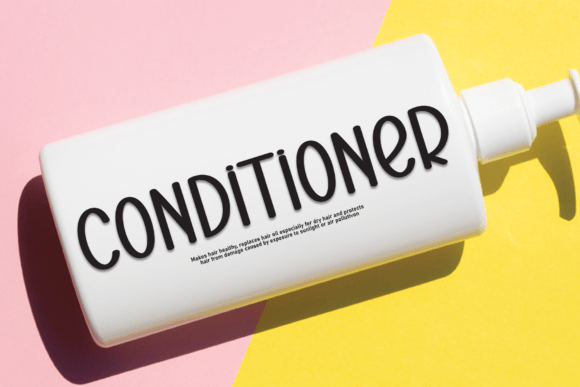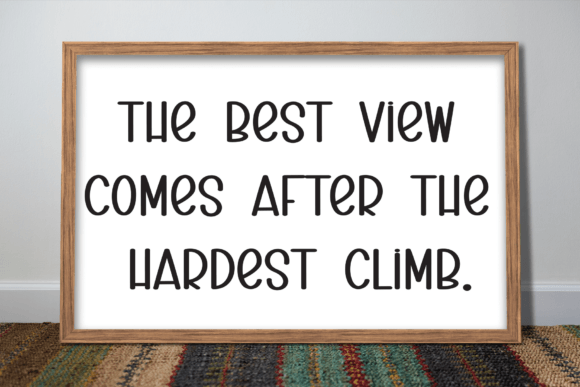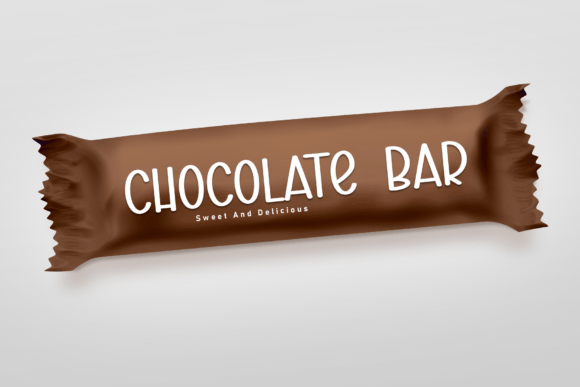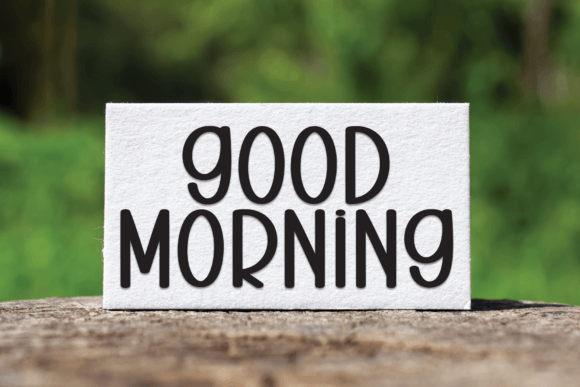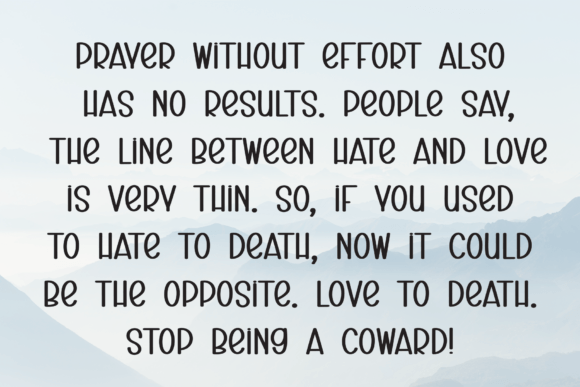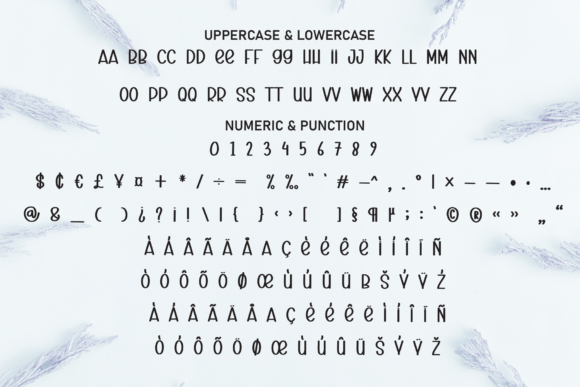
Introduction to Minimalist Winterday Font
Minimalist Winterday is a handwritten display font that features clean, simple lines with a cozy, winter-inspired feel.
Its gentle, flowing style makes it perfect for creating a calm and stylish atmosphere in your designs .
Key Features of Minimalist Winterday Font